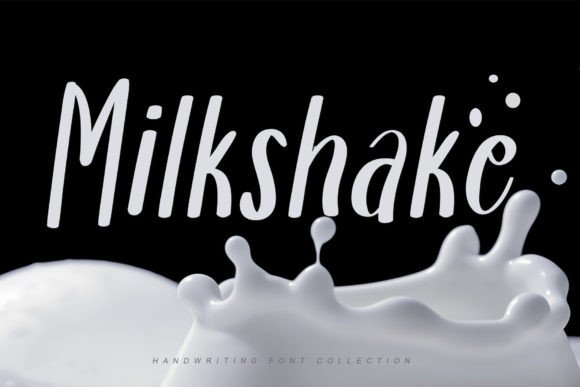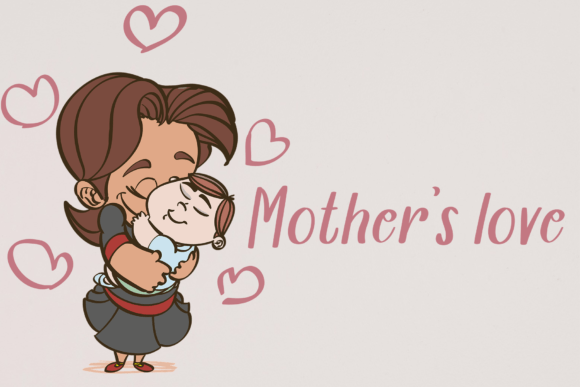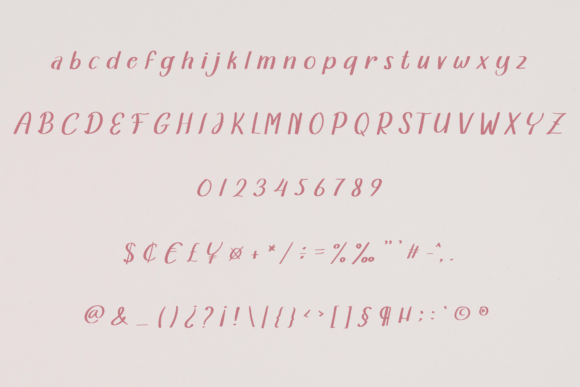
About Milkshake Font
“Milkshake” is a neat and beautiful handwritten font characterized by an elegant touch, making it the perfect choice for your favorite projects. Its distinct and timeless style sets it apart, inviting you to fall in love with its charm and utilize it to create spectacular designs.
The neat and beautiful qualities of “Milkshake” are evident in its carefully crafted characters. The font’s elegant touch adds a sense of refinement, making it well-suited for a variety of design projects where a polished and stylish look is desired.
The distinct and timeless style of “Milkshake” contributes to its versatility, allowing it to seamlessly adapt to different creative applications. Whether applied to branding materials, invitations, posters, or any design project, “Milkshake” brings a touch of sophistication that enhances the overall aesthetic.
The font invites you to infuse your projects with an elegant and timeless appeal. Its handwritten quality adds a personal and authentic touch, making it particularly well-suited for designs that require a combination of neatness and beauty.
In summary, “Milkshake” is more than just a font; it’s a design tool that offers a neat and beautiful handwritten style with an elegant touch. Fall in love with its distinct and timeless appeal, and use it to create spectacular designs that resonate with sophistication and charm across a range of creative endeavors.